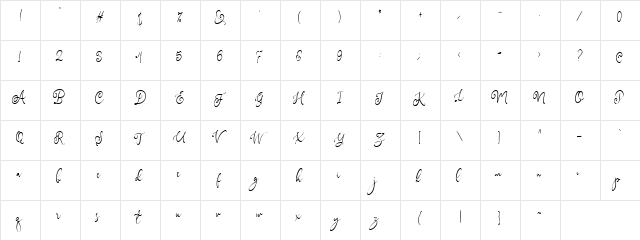
Gladiolus Script DEMO Regular Font Preview
Gladiolus Script DEMO Regular
Gladiolus Script DEMO Regular Font Details
| Designer | Sarid Ezra |
Design Context for Gladiolus Script DEMO Typeface
Gladiolus Script DEMO brings a calligraphic fluidity to the page — its connecting strokes and expressive curves give it an unmistakably human quality.
Font Pairing: Combine Gladiolus Script DEMO with a simple geometric sans for maximum contrast — the tension between flowing curves and clean structure is a classic typographic pairing.
Pro Tip: Pair Gladiolus Script DEMO with a clean sans-serif for supporting text. The contrast between fluid script and geometric structure creates an elegant typographic hierarchy.